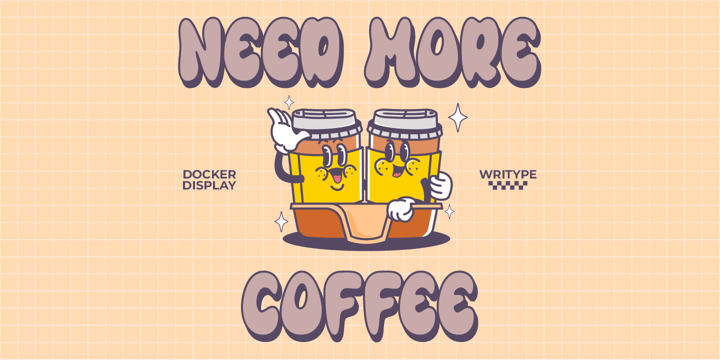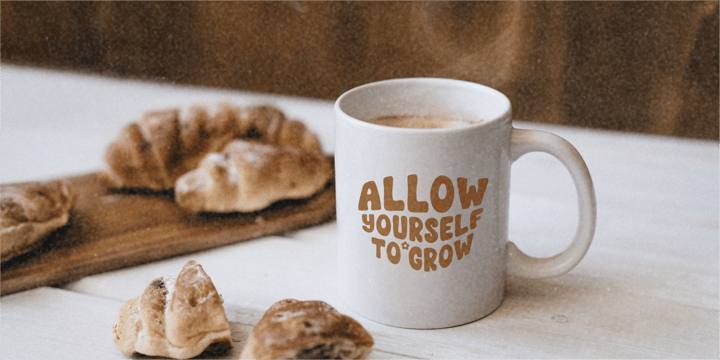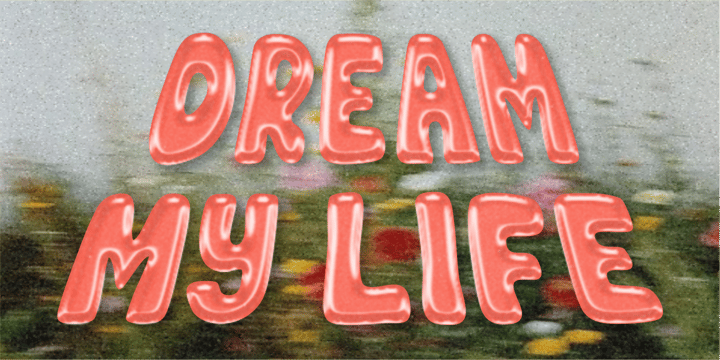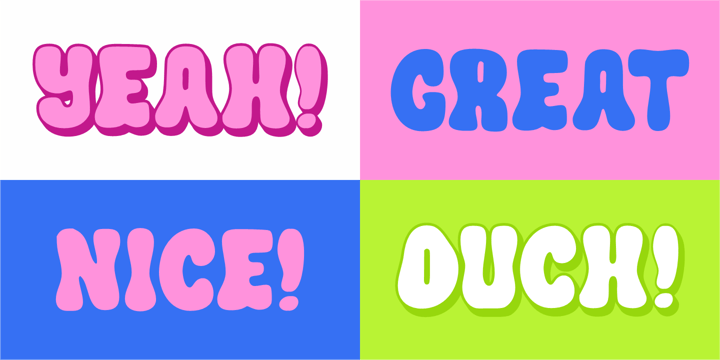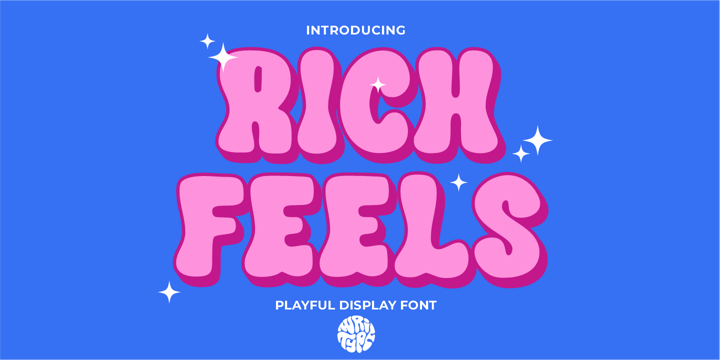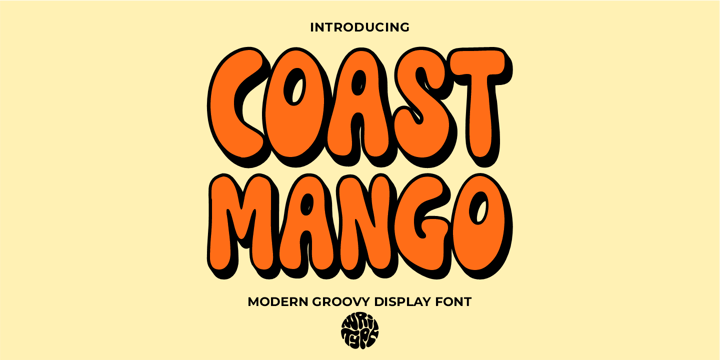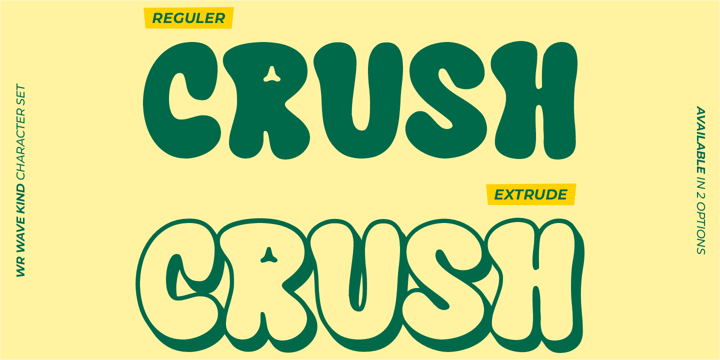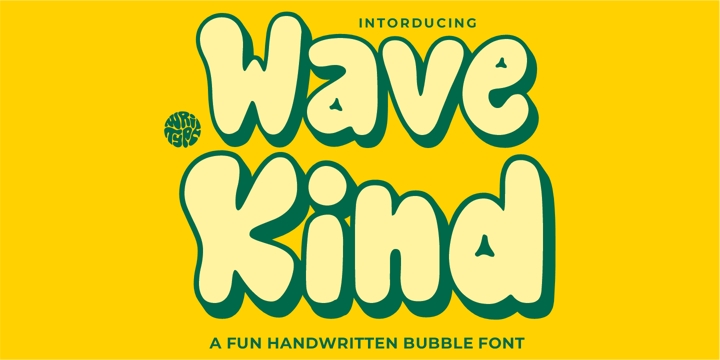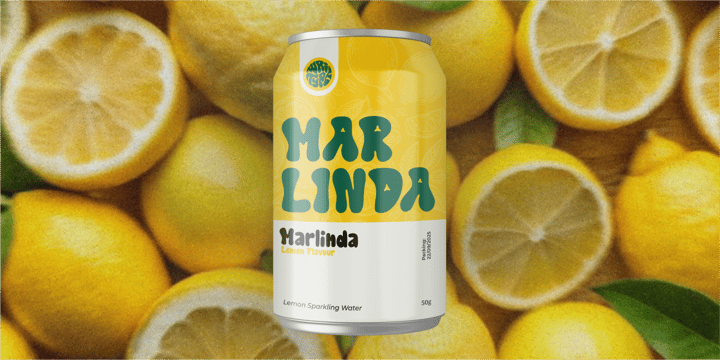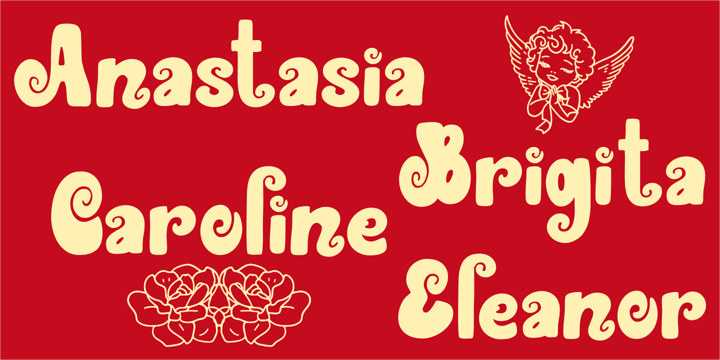
I am Ade Wira, a designer with a D3 Management background, who has cultivated a deep passion for typography for many years. Since 2022, he has been actively involved in font design, working with several local studios to realize his creative vision. I specialize in designing unique and attractive display fonts, with a special focus on a style that is fun, cheerful, and full of personality. My work stands out for its distinctive, fun, and dynamic qualities, which make each font visually appealing and memorable. My dedication to pushing the boundaries of typography design has allowed him to create fonts that not only stand out but also resonate with a variety of creative projects. To create the font, I use the fontlab application and corel draw to create its display design.